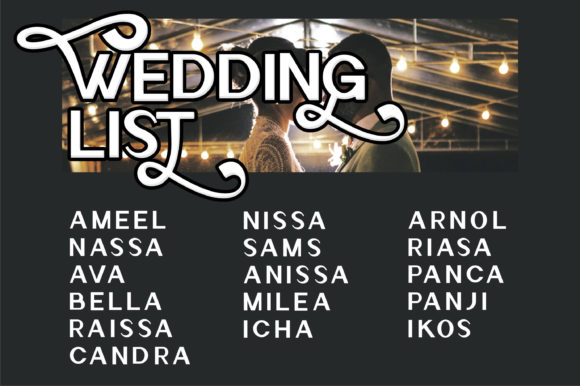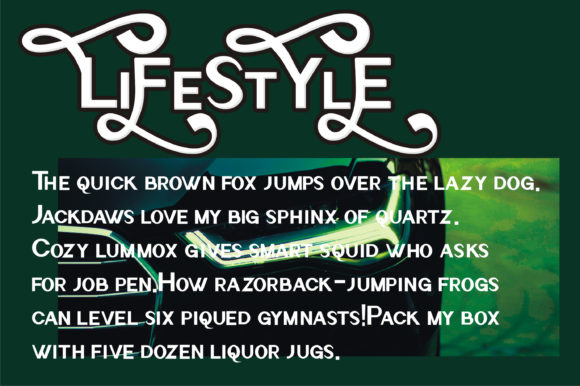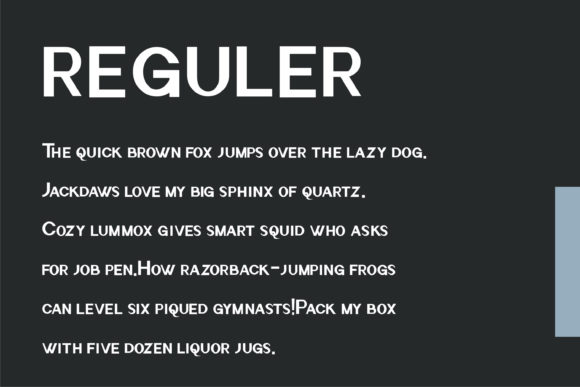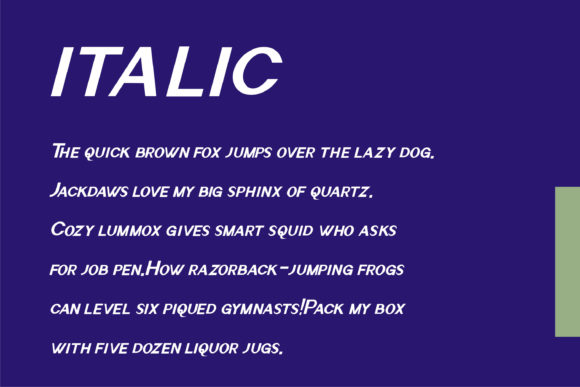
ReMoS Display Font
This is a cool and whimsical display font. Trendy and stylish, this font will elevate each of your creations. ReMoS is PUA encoded which means you can access all of the glyphs and swashes with ease!